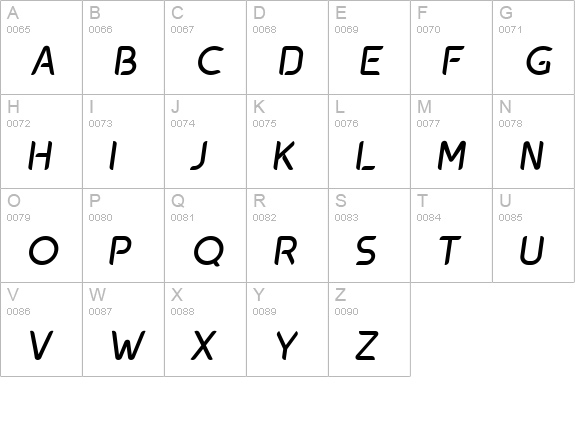
oxo-Italic Font Details
oxo-Italic is a distinctive, italic variant in the oxo typeface family \xE2\x80\x94 well suited to design and typography projects.
Oxo-Italic is a modern and elegant font that exudes sophistication and style. Its sleek and slanted design adds a touch of class to any project, making it perfect for branding, advertising, and design work. The clean lines and smooth curves of Oxo-Italic give it a contemporary look that is both professional and eye-catching. What sets Oxo-Italic apart is that it is not only visually appealing but also versatile and easy to read. Whether used for headlines, body text, or other design elements, this font remains legible and impactful. Its italicized style adds a dynamic and dynamic flair to any text, making it a standout choice for creative projects. Best of all, Oxo-Italic is available for free download at FontsMarket.com. This means that you can access this high-quality font without any cost, making it a valuable addition to your font library. With Oxo-Italic, you can elevate your designs with a touch of elegance and professionalism without breaking the bank. Download Oxo-Italic today and discover the endless creative possibilities it offers.